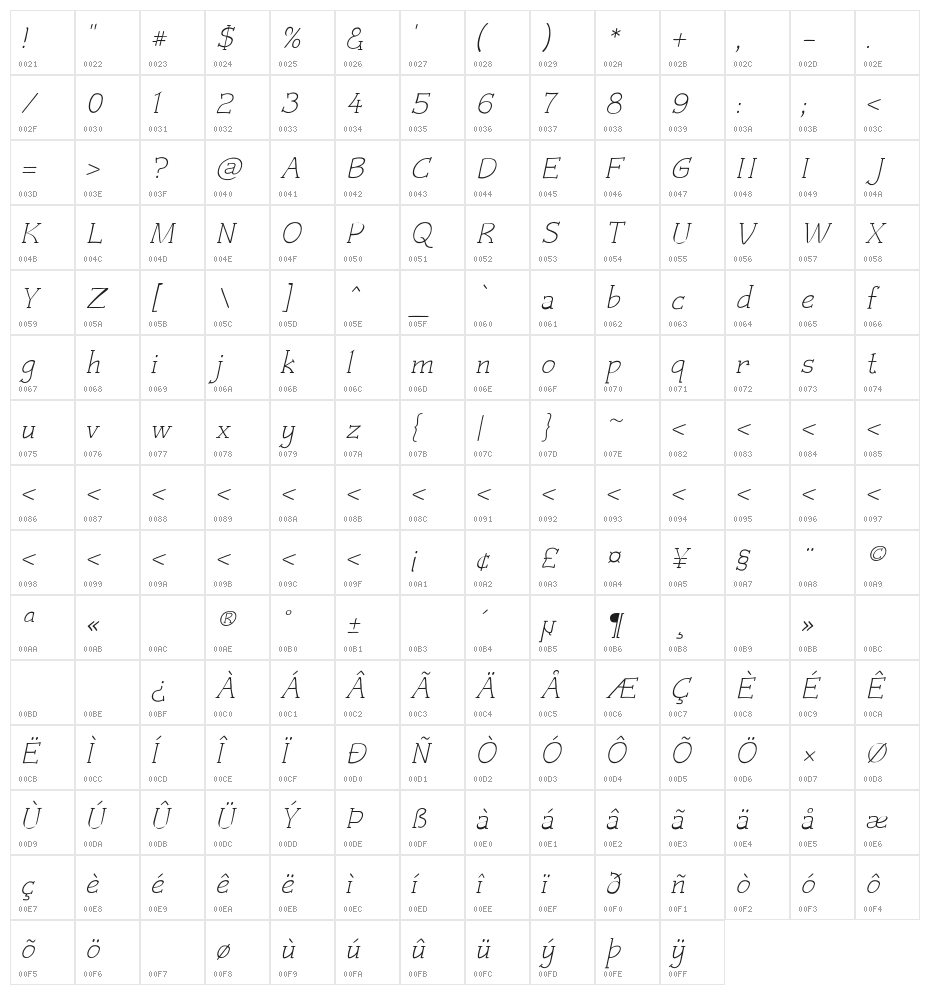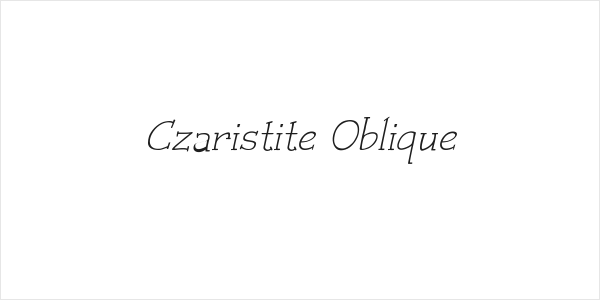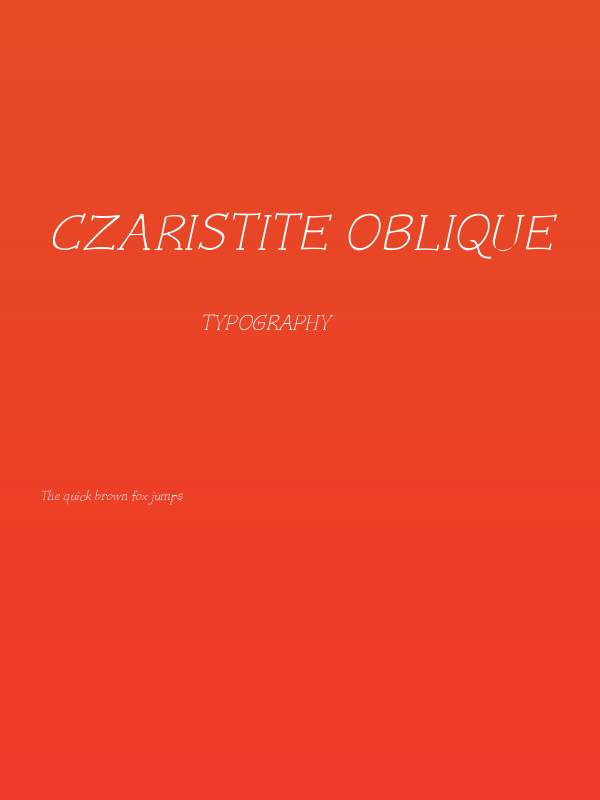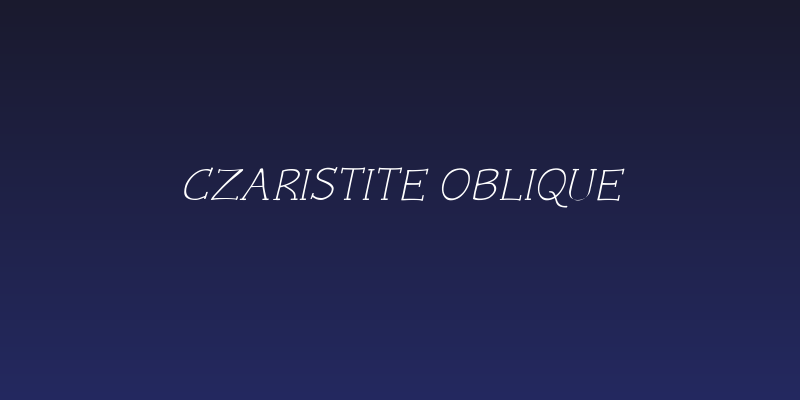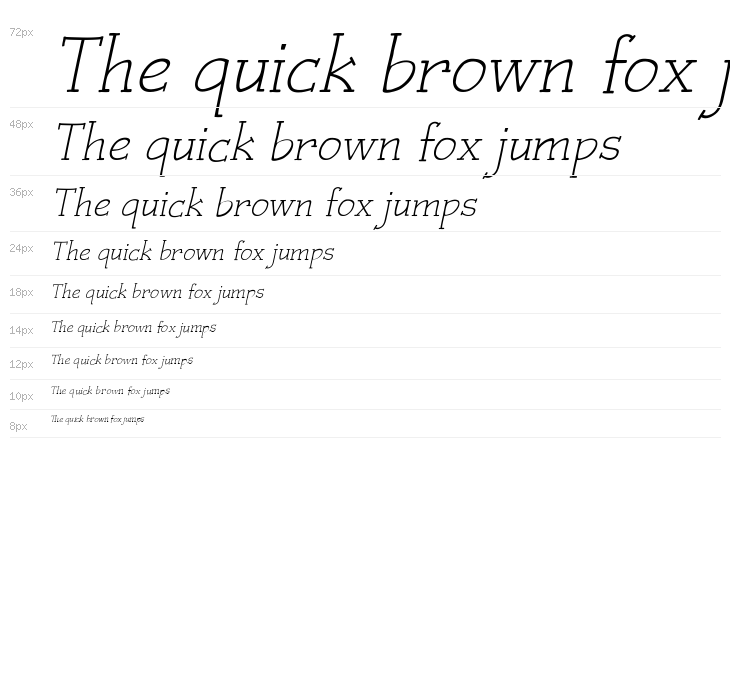
Czaristite Oblique Font
Czaristite Oblique Description
This font features an elegant and sophisticated oblique style, characterized by its slanted, flowing letterforms. The strokes are smooth and slightly curved, giving it a graceful appearance. The uppercase letters are tall and slender, while the lowercase letters maintain a consistent slant, enhancing the font's dynamic look. The numerals are well-proportioned, and the special characters blend seamlessly with the overall design. This font exudes a sense of refinement and is suitable for projects that require a touch of class and elegance.
| Use Case | Logos, Invitations, Editorial design |
| Proposed Projects | Ideal for wedding invitations, luxury brand logos, elegant packaging, and high-end editorial design. |